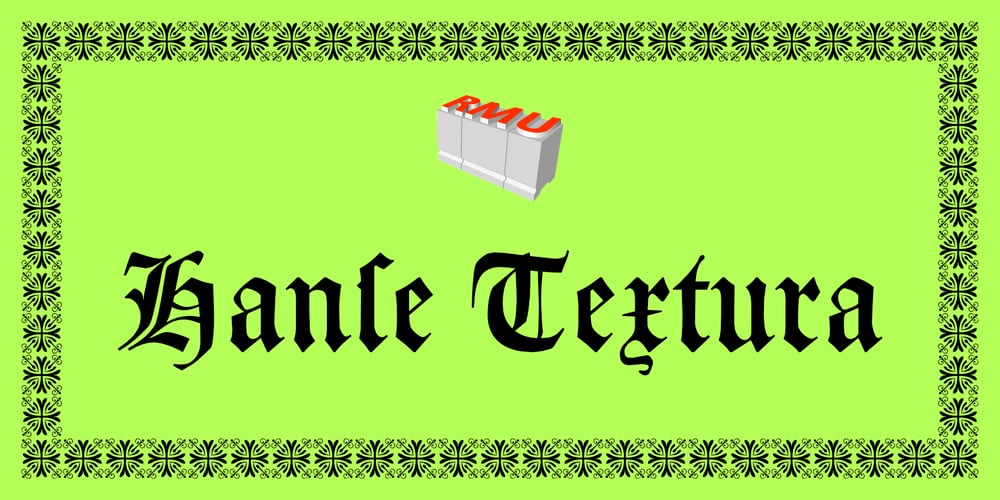
Hanse Textura
Hanse Textura font
Hanse Textura Font Family was designed by Ralph M. Unger and published by RMU. Hanse Textura contains 1 styles and family package options. Inspired by a former Hermann Zapf design, Hanse Textura was completely redrawn and redesigned as an English-style blackletter font with a calligraphic touch. It comes also with the historical long s which can be reached either by typing [alt] + b or by using the OT feature historical forms. I strongly recommend to activate both OT features, standard and discretionary, to access all ligatures built in the font.The keys pi and product are occupied with beautiful border elements.